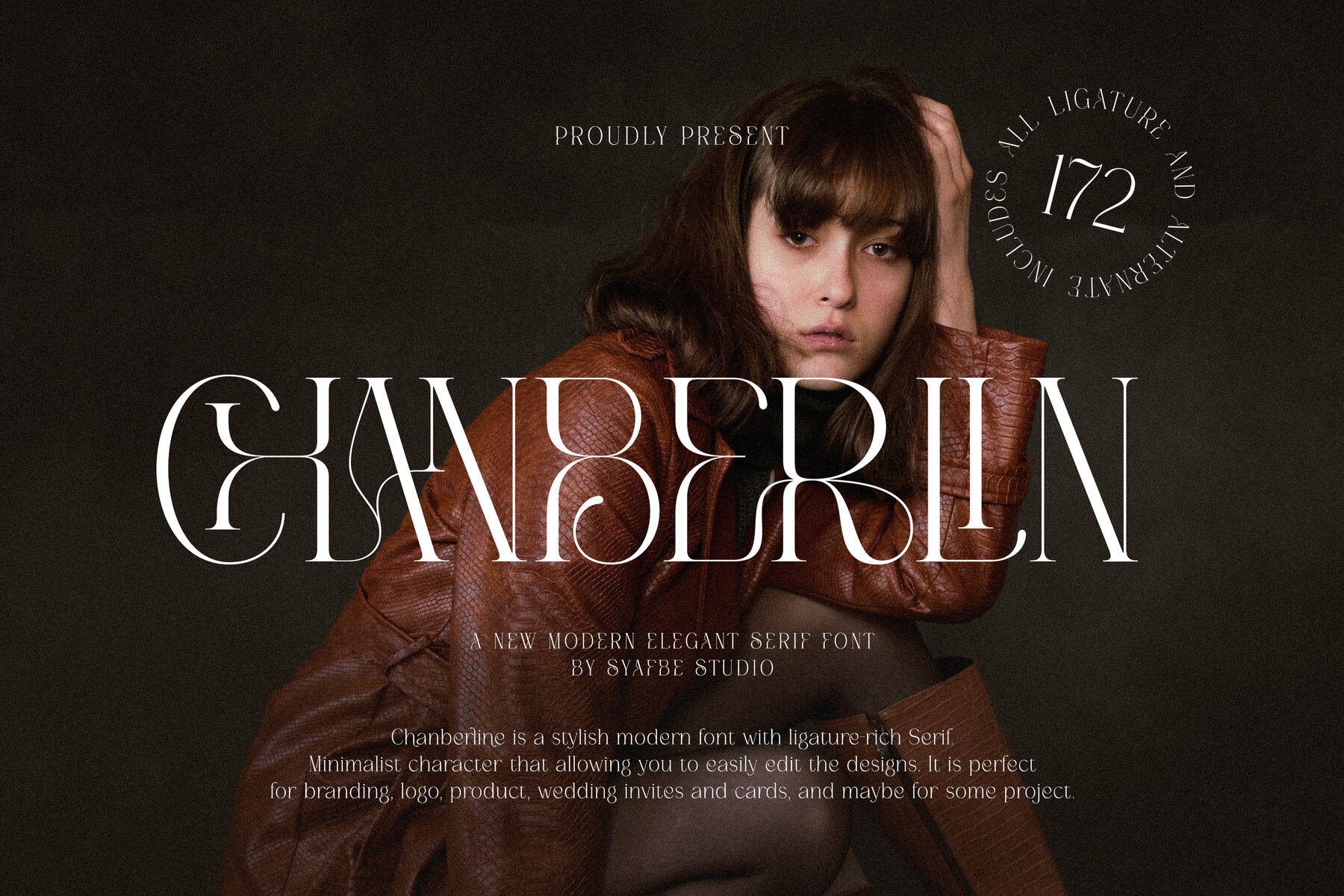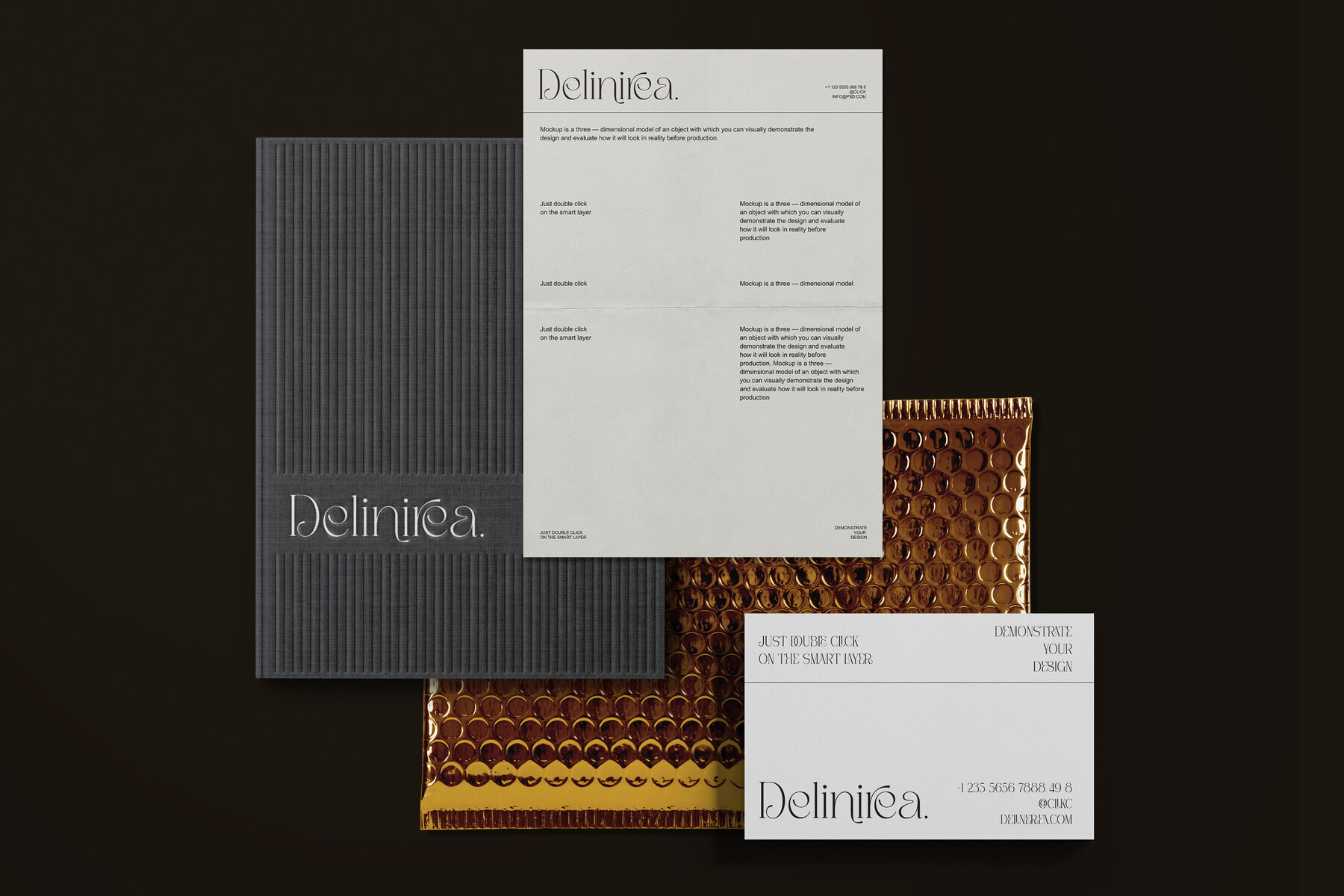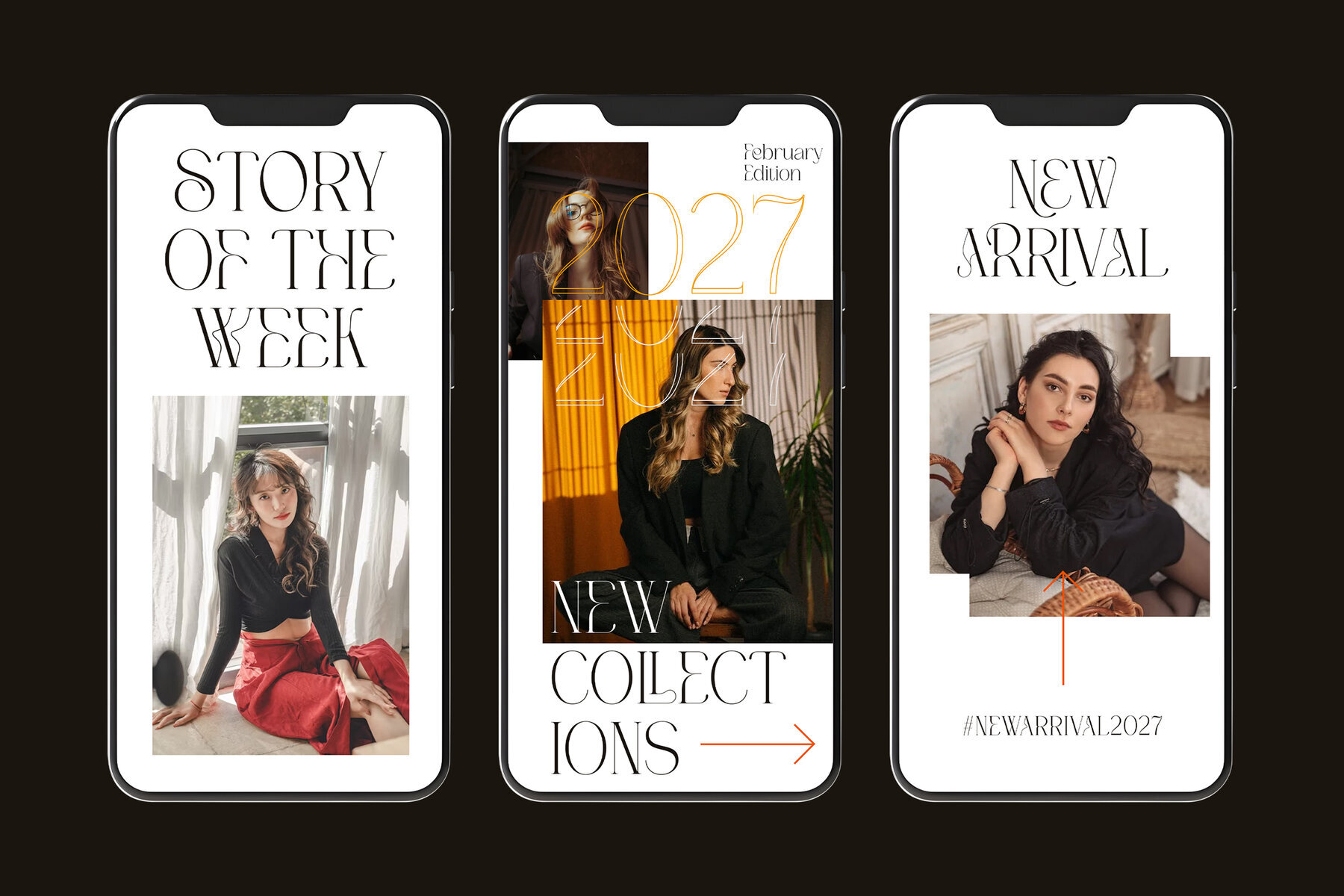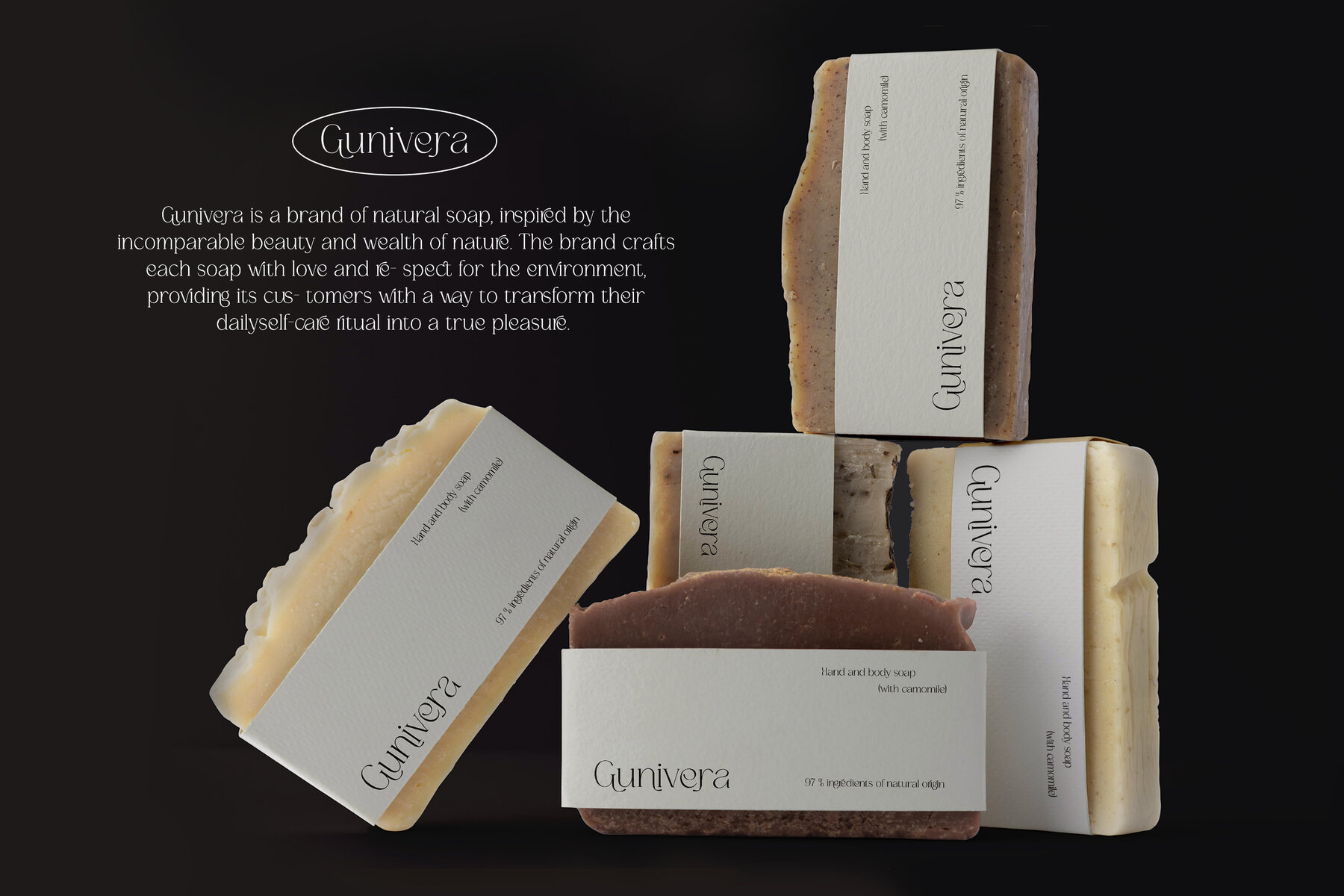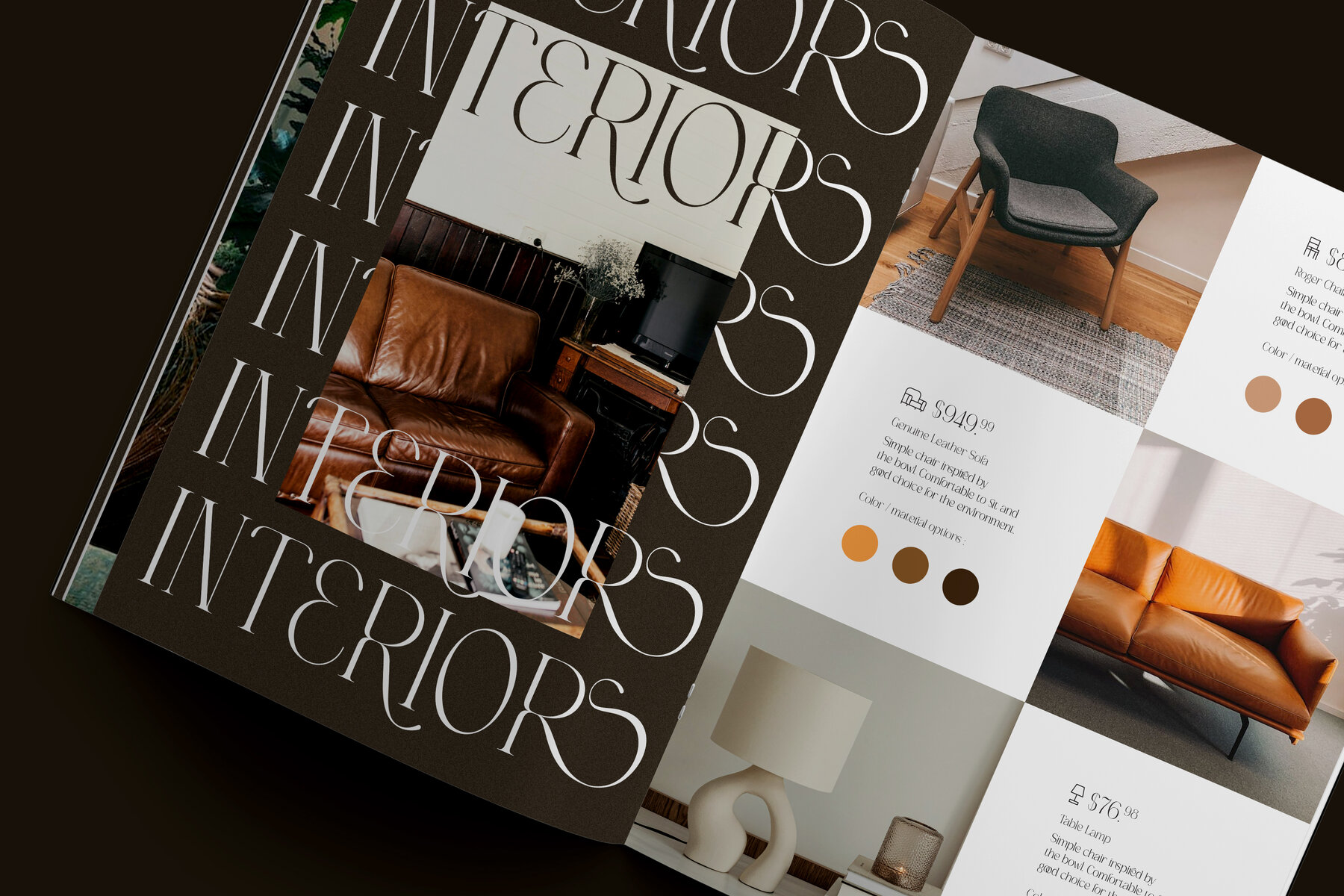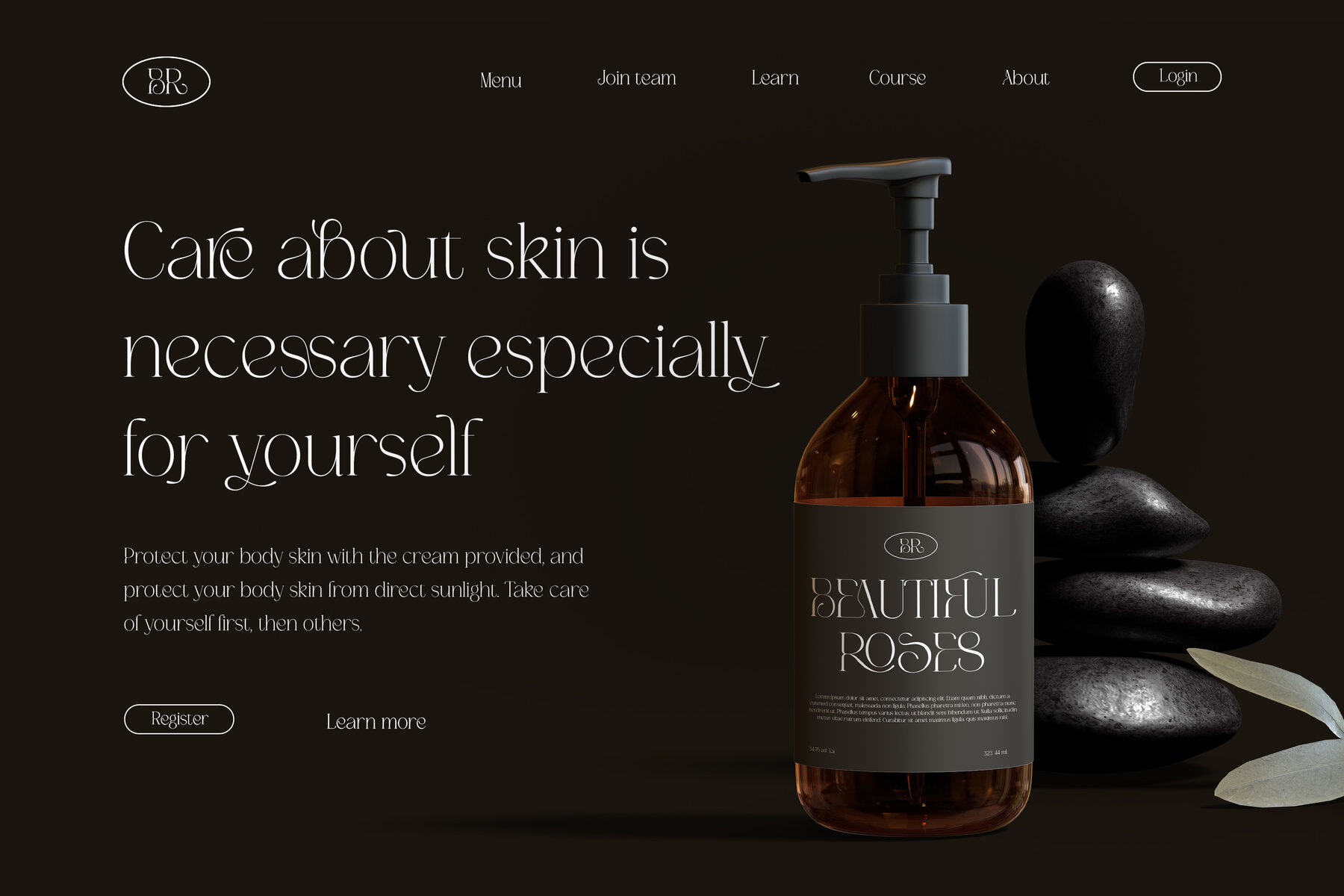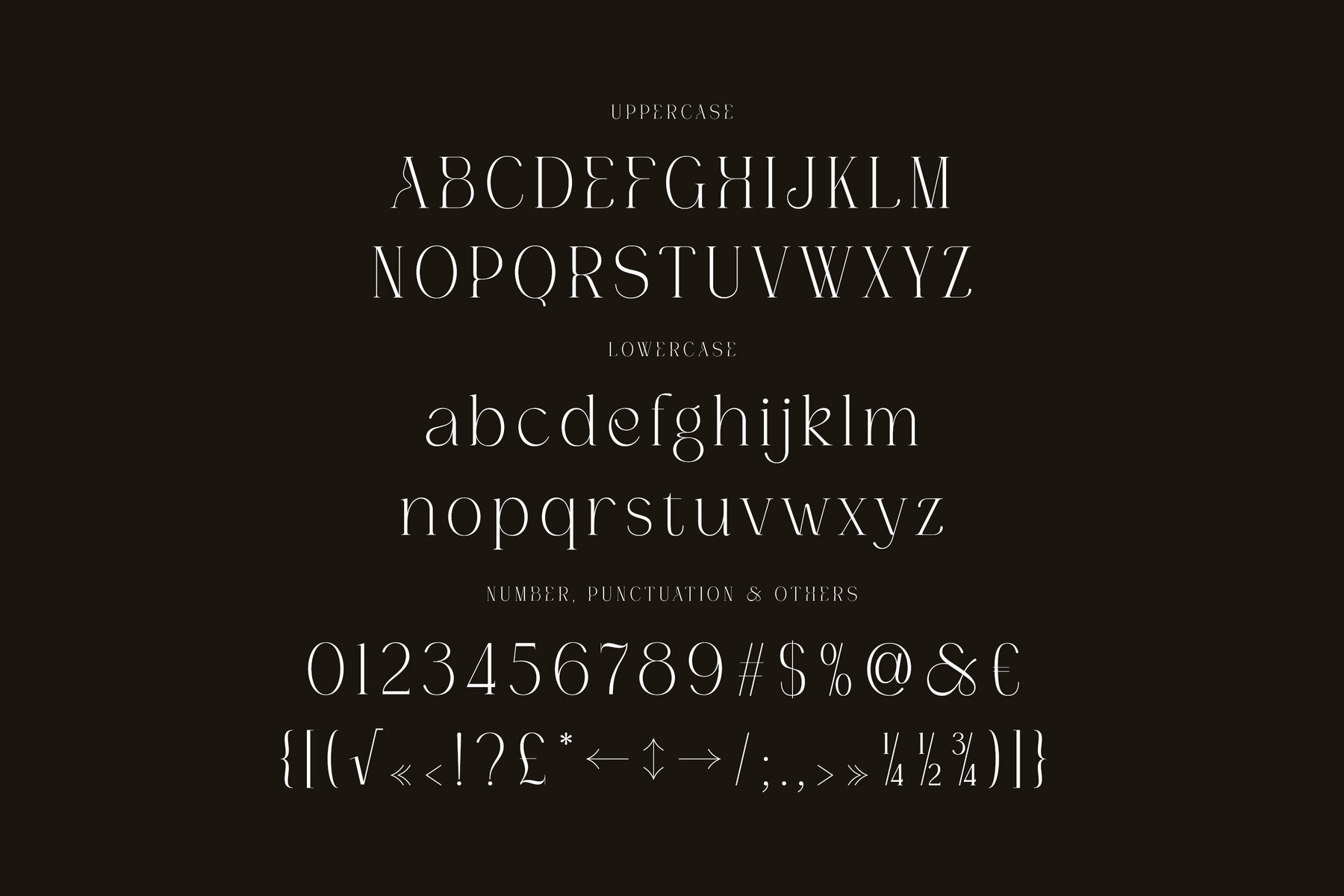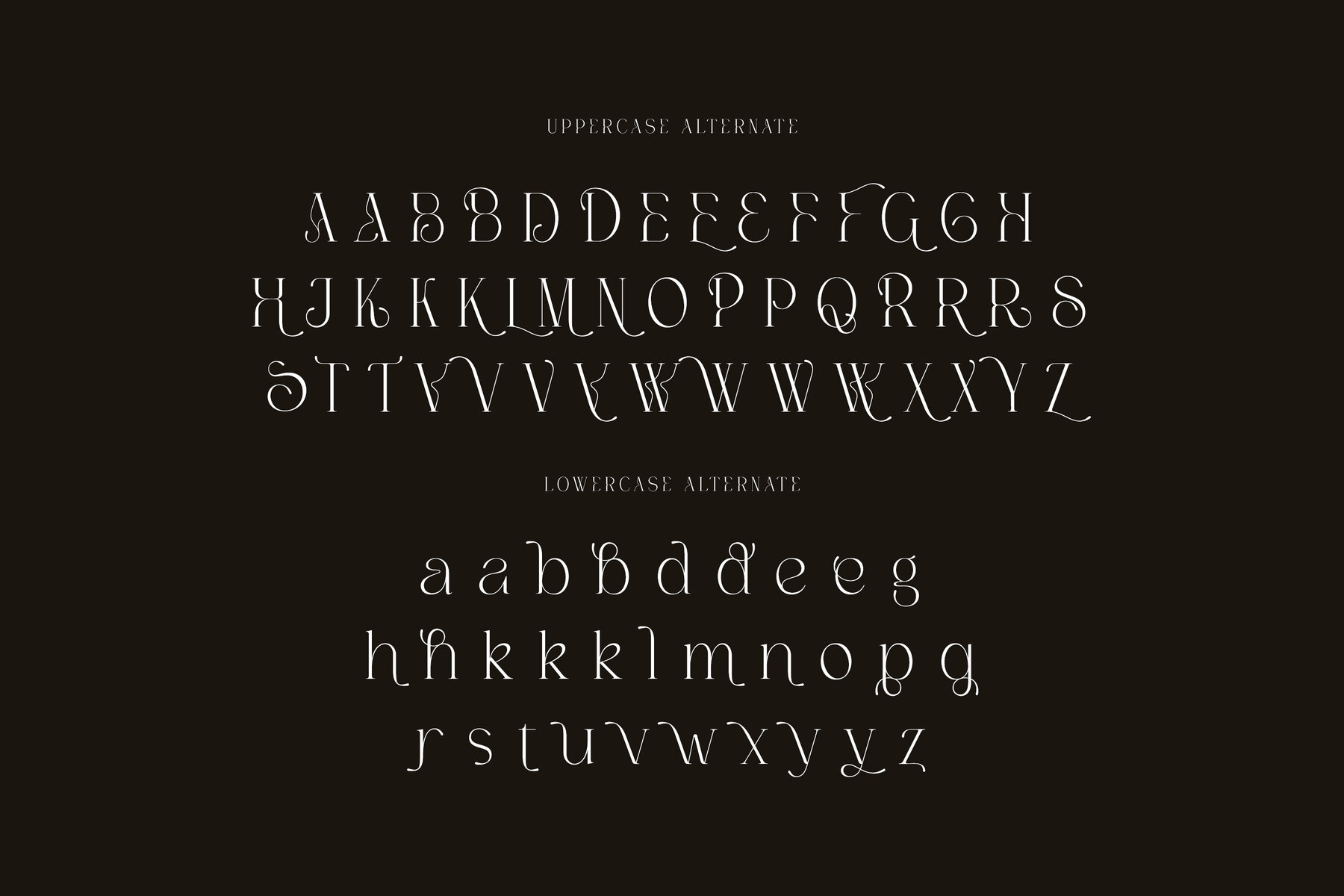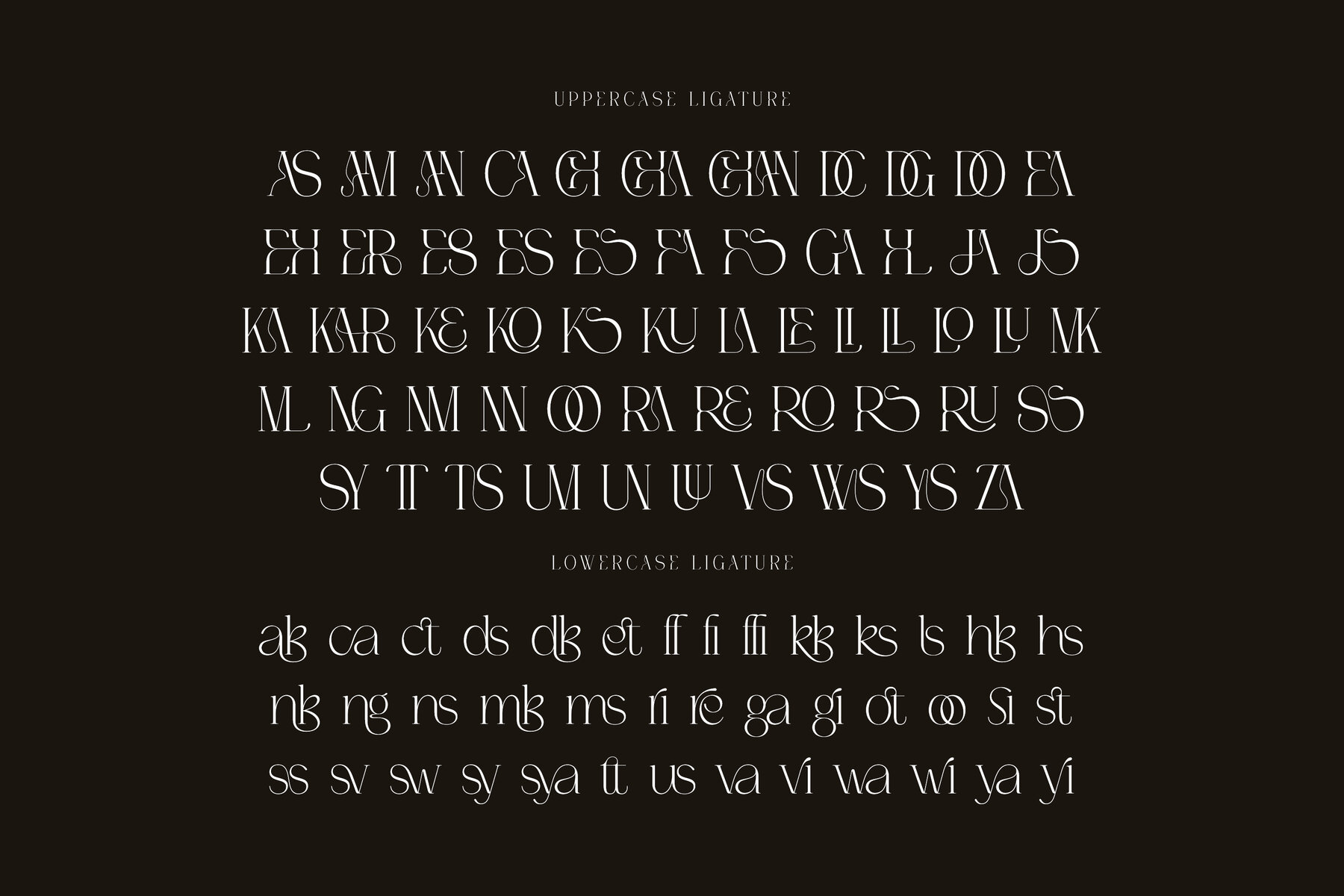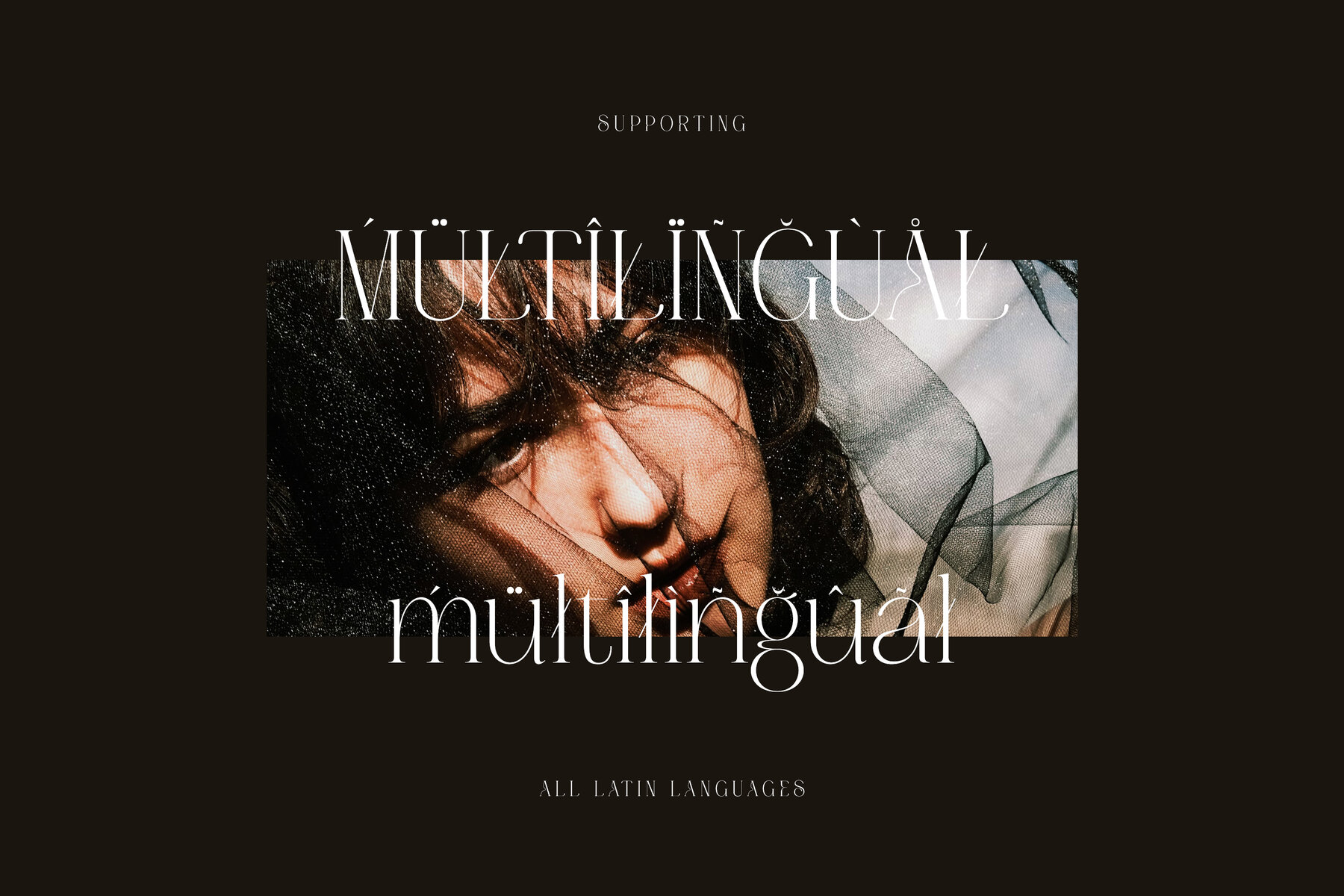
Chanberlin Font
Chanberlin Regular
Chanberlin Italic
The Chanberlin font embraces sophistication with a modern serif style, seamlessly merging classic and contemporary elements. Each character showcases artistry through carefully designed ligatures, creating a visual symphony of elegance. This versatile typeface excels in diverse applications, from brand identity and luxurious wedding invitations to sophisticated logo creation. Chanberlin's minimalist appeal ensures a confident impression without overwhelming the observer. Beyond mere readability, Chanberlin communicates a story in every letter, lending itself to varied mediums, whether in print, digital, or branding materials. Its fluid curves and distinct serifs make it the choice for those seeking to add a touch of refinement to their designs.Chanberlin: A Symbol of Elegance in Typography